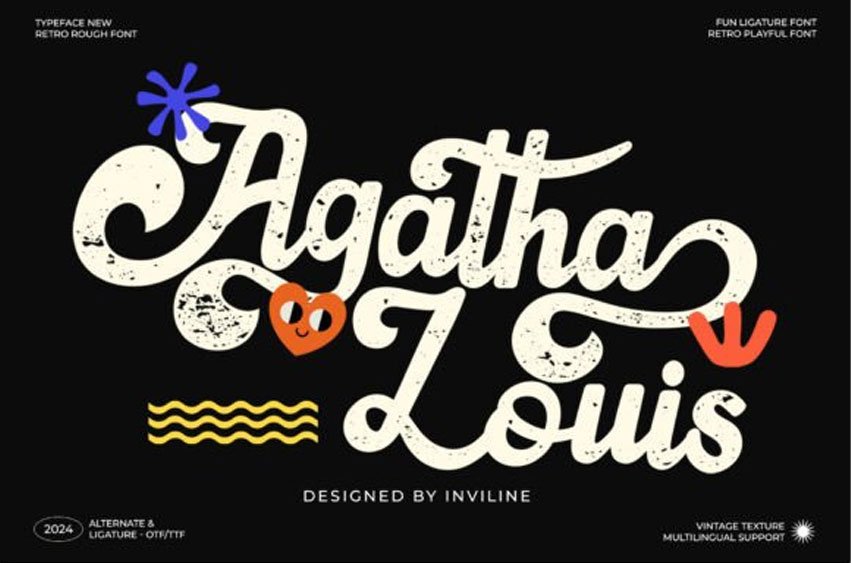
Agatha Louis Font is a retro rough script font with a playful twist and vintage soul. Designed with textured strokes, fun ligatures, and alternate characters, it brings nostalgic charm to your design.
Perfect for retro posters, funky branding, kids’ merchandise, greeting cards, and creative social media. The font includes alternate & ligature sets and is available in OTF & TTF formats with multilingual support.